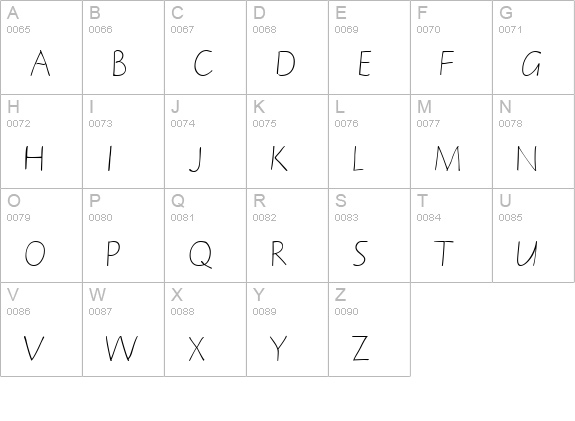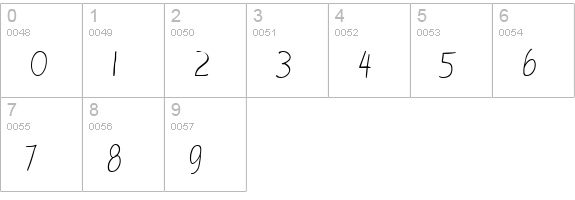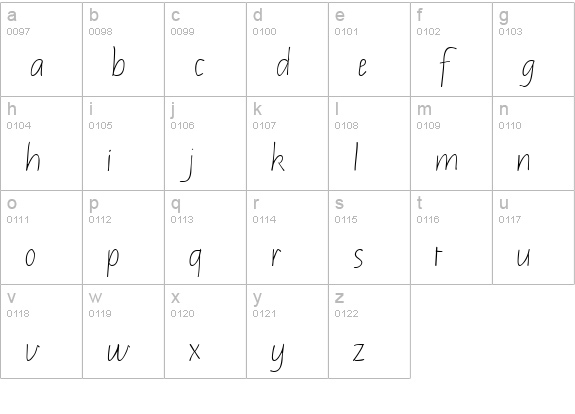
NotehandLefty Italic Font Details
NotehandLefty Italic is a distinctive, italic variant in the NotehandLefty typeface family \xE2\x80\x94 well suited to design and typography projects.
NotehandLefty Italic is a unique and stylish font that adds a touch of elegance to any design project. With its slanted and flowing letterforms, this font exudes creativity and sophistication. The italicized style of NotehandLefty brings a sense of dynamism and flair to your text, making it perfect for invitations, branding, or any project that requires a touch of personality. Best of all, NotehandLefty Italic is available for free download at FontsMarket.com. This means you can easily access this beautiful font and incorporate it into your designs without any cost. Don't miss out on the opportunity to enhance your projects with the charm and versatility of NotehandLefty Italic. Download it today and elevate your design game!